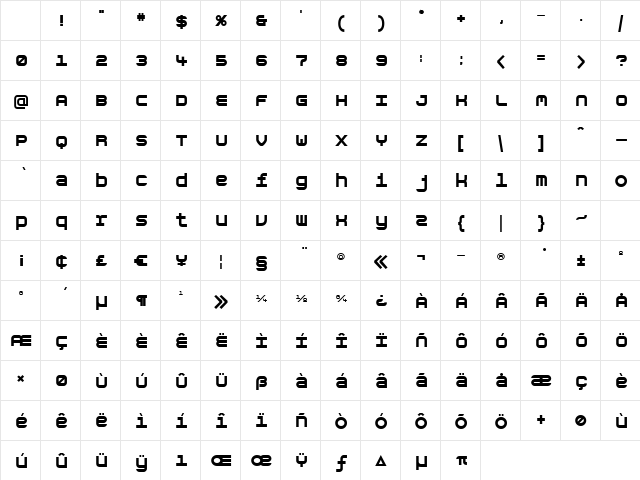
AspirinOverdose Regular Free Font
AspirinOverdose Regular
Design Context for AspirinOverdose
AspirinOverdose is a composed and adaptable typeface that performs quietly and consistently across a wide range of design contexts.